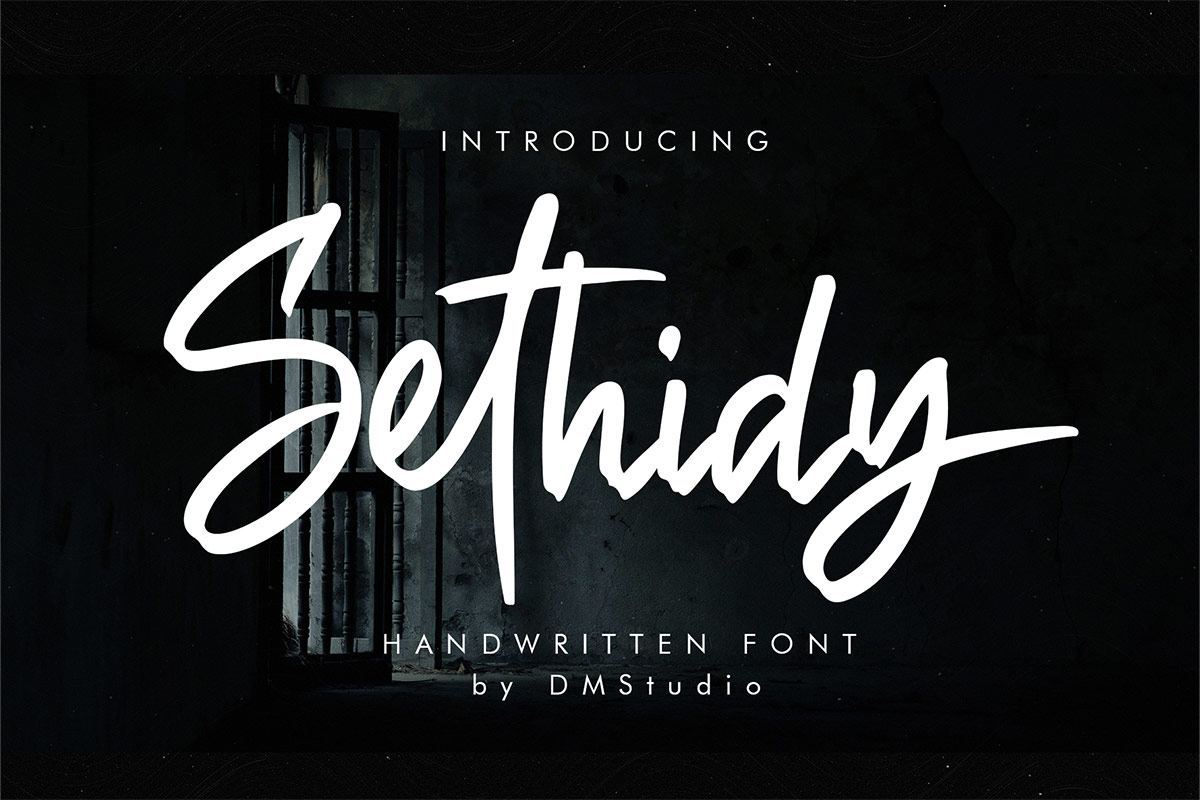
Sethidy – Handwritten Font
The Sethidy Handwritten Font is a versatile and charming typeface that radiates an authentic and natural feel. With its flowing letterforms and organic strokes, this font adds a touch of warmth and personality to your designs, making it perfect for various projects including branding, logos, invitations, and more.
1. Casual and Inviting Style: The Sethidy Font exudes a casual and inviting aesthetic. Its handwritten appearance and fluid strokes create an approachable and friendly look, making it ideal for projects that aim to convey a personal and natural touch.
2. Handcrafted Appeal: The font captures the authenticity of handwritten text, adding a human touch to your designs. Its natural imperfections and irregularities give it a unique and artisanal feel, enhancing the overall visual appeal of your typography.
3. Versatile Application: This font is versatile and well-suited for a wide range of design projects that require an element of authenticity and approachability. Use it in branding, logos, packaging, social media graphics, and more to add a touch of personality and character to your designs.
4. Uppercase and Lowercase Letters: The font includes both uppercase and lowercase letters, providing flexibility and creative freedom in your designs. Mix and match the cases to create visually appealing and balanced typography.
5. Ligatures and Swashes: The Sethidy Font offers a selection of ligatures and swashes that enhance the visual interest of your text. These special characters create unique connections between letters and decorative flourishes, allowing you to create captivating and personalized typography.
6. Punctuation and Symbols: In addition to the alphabet, the Sethidy Font includes a comprehensive set of punctuation marks, numerals, and common symbols. This ensures consistency and ease of use when incorporating the font into your design projects.
Elevate your designs with the authentic and approachable feel of the Sethidy Handwritten Font. Let its flowing letterforms and natural imperfections add a touch of warmth and personality to your branding, logos, and invitations. Embrace the handcrafted beauty of this font and create designs that resonate with a genuine and human touch.